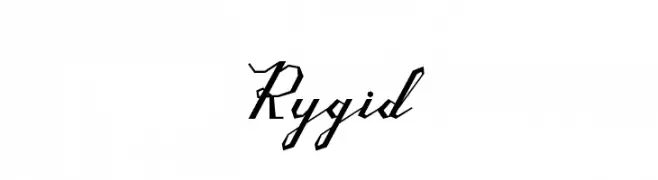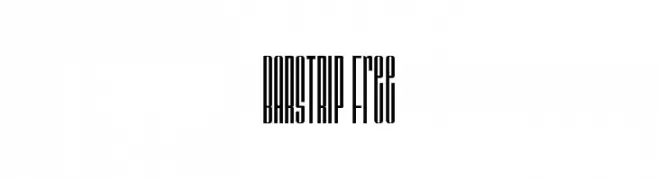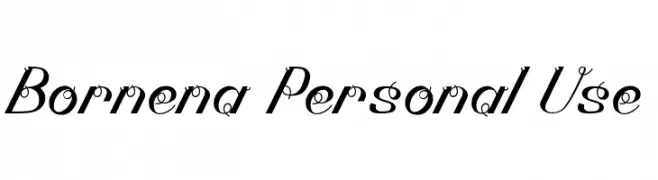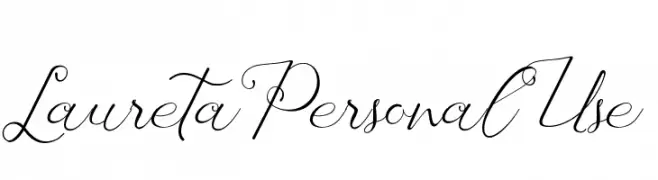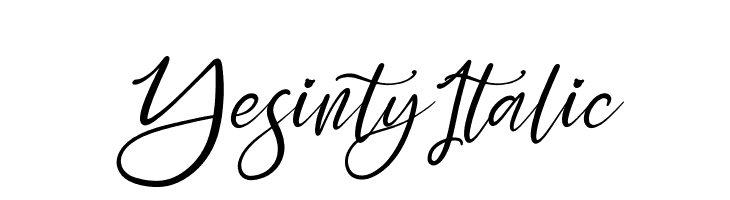
A bold, angular script font with a modern, edgy style.
A modern, condensed font with elongated, narrow letters and uniform stroke widths.
A playful, bold handwritten font with smooth curves and rounded edges.
A cursive, flowing font with elegant, sweeping lines and artistic flair.
An elegant script font with ornate uppercase and smooth cursive lowercase letters.
A decorative font with elegant swirls and loops, perfect for creative projects.
An elegant script font with flowing, cursive letters and decorative swashes.
A playful, flowing script font with smooth, connected strokes.
An elegant script font with flowing, cursive style and intricate loops.
A fluid and elegant script font with a handwritten style.